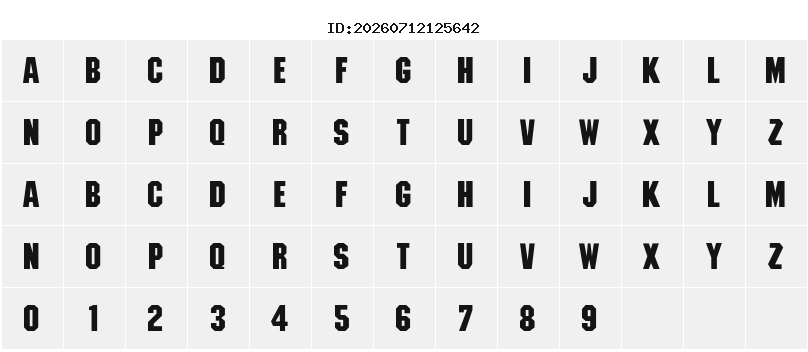
MachiavelliBld Preview
• Font Name: MachiavelliBld
• Full Font Name: MachiavelliBld
• PostScript Name: MachiavelliBld
About MachiavelliBld.ttf
MachiavelliBld.ttf is a modern, elegant sans-serif font designed for ultimate readability and visual harmony. Perfect for branding, headlines, web design, and print materials.